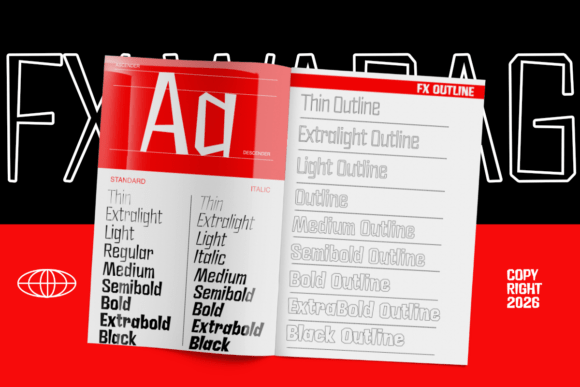
Fx Wadag Font: Unleash Your Creative Vision with a Modern Display Family
In the realm of typography, few fonts have made a lasting impact like Fx Wadag. This modern display family is engineered to ignite your creative vision, boasting a massive array of 36 styles that cater to a wide range of design needs. From sophisticated Thin to commanding Black weights, Fx Wadag is a powerhouse collection that ensures your message dominates any space.
Geometric Architecture with Bold, Angular Cuts
Fx Wadag’s geometric architecture is defined by bold, angular cuts that exude an industrial strength. This font family is perfect for designers who want to create a lasting impression. The bold, geometric lines of Fx Wadag make it an ideal choice for high-tech branding, futuristic gaming interfaces, sports apparel graphics, and cinematic automotive headers.
36 Styles to Choose From
One of the standout features of Fx Wadag is its extensive range of styles. With 36 variations to choose from, you’re spoiled for choice. Whether you’re designing for digital platforms or physical signage, there’s a Fx Wadag style to suit your needs. The font family includes:
- Thin weights for sophisticated designs
- Regular weights for everyday use
- Bold weights for making a statement
- Black weights for maximum impact
- Outline styles for added versatility
Striking Outline Styles
What sets Fx Wadag apart from other font families is its inclusion of striking Outline styles. These styles add an extra layer of depth and dimensionality to your designs, making them perfect for:
- High-tech branding that demands attention
- Futuristic gaming interfaces that require a cutting-edge look
- Sports apparel graphics that need to make a bold statement
- Cinematic automotive headers that require a sense of power and speed
Fx Wadag is an extraordinary choice for designers and crafters who want to create professional-grade designs. The font family’s industrial strength and geometric architecture ensure that your designs exude a sense of authority and precision. Whether you’re working on a digital project or creating physical signage, Fx Wadag delivers a sense of unyielding professional authority and legendary precision.
Why Choose Fx Wadag?
So, why choose Fx Wadag over other font families? Here are just a few compelling reasons:
- Versatility: With 36 styles to choose from, Fx Wadag is versatile enough to suit a wide range of design needs.
- Impact: The font family’s bold, angular cuts and industrial strength ensure that your message dominates any space.
- Precision: Fx Wadag’s geometric architecture ensures a sense of legendary precision and professional authority.
- Creativity: The striking Outline styles and extensive range of weights give you the creative freedom to experiment and push boundaries.
In conclusion, Fx Wadag is a modern display family that’s engineered to ignite your creative vision. With its extensive range of styles, geometric architecture, and striking Outline styles, it’s the perfect choice for designers and crafters who want to create professional-grade designs. Whether you’re working on high-tech branding, futuristic gaming interfaces, sports apparel graphics, or cinematic automotive headers, Fx Wadag is the ultimate font family to help you make a lasting impact.